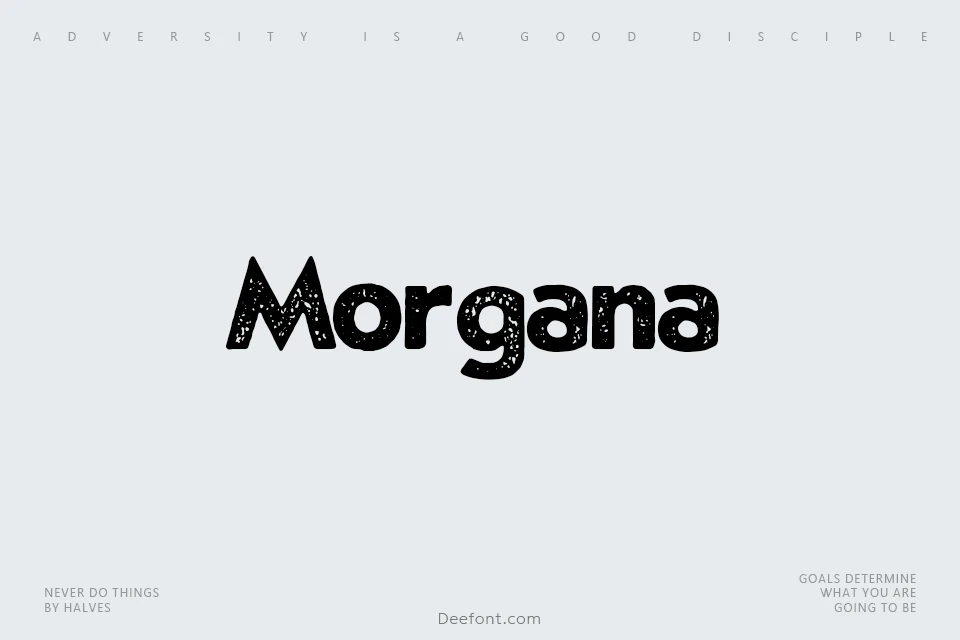
Morgana Font
Morgana Font is an eye-catching display font inspired by mystery magazines and horror films, designed to add a weird and kooky spark to any design project.Making it perfect for vintage posters, advertising, branding, logos, and any project that needs a distressed, eroded aesthetic. This fancy font combines classic and retro elements with a grunge texture, giving your typography a unique personality that stands out from the crowd.